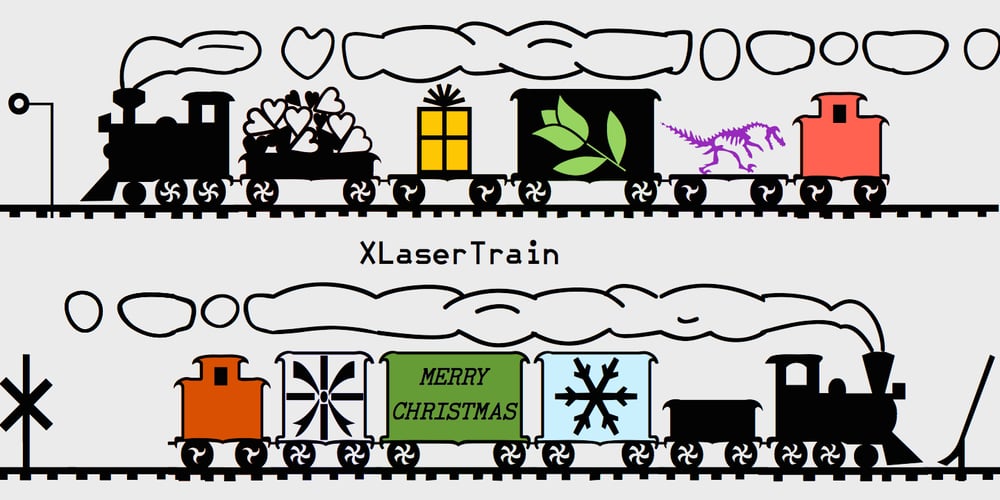
XLaserTrain
XLaserTrain font
XLaserTrain Font Family was designed by Robert Schenk and published by Ingrimayne Type. XLaserTrain contains 2 styles and family package options. The first release of XLaserTrain, a toy train font, was constructed by taking bits from the four LetterTrain fonts. Version 2, released in late 2010, added a great many cars with holiday and party themes. The bold version has smoke over the cars and you may have to adjust line spacing (leading) to have it display properly.